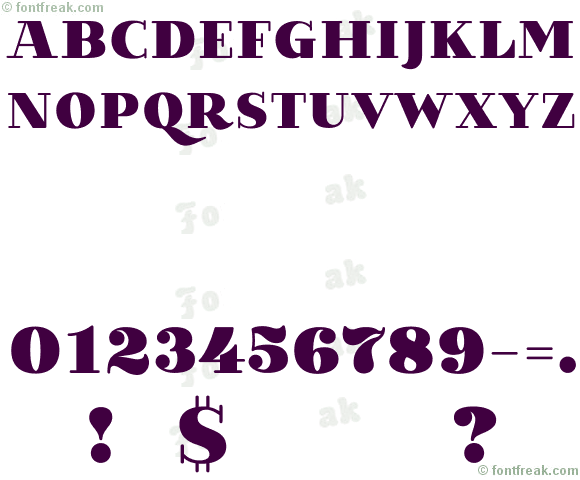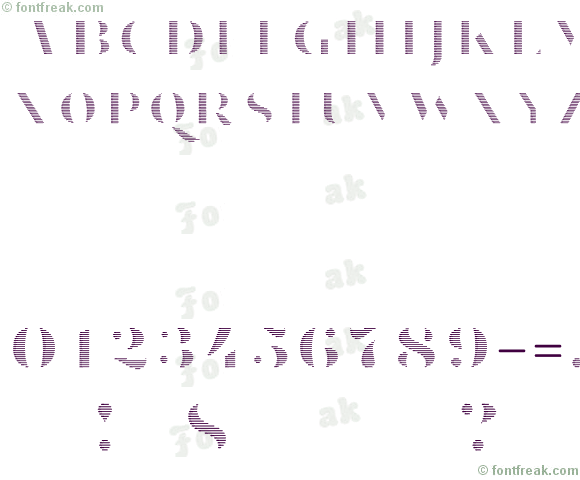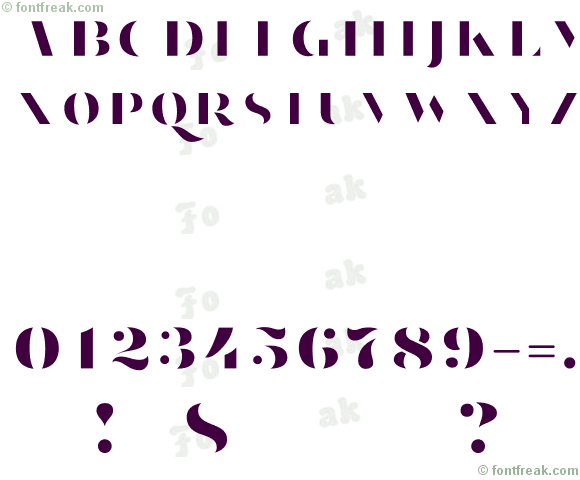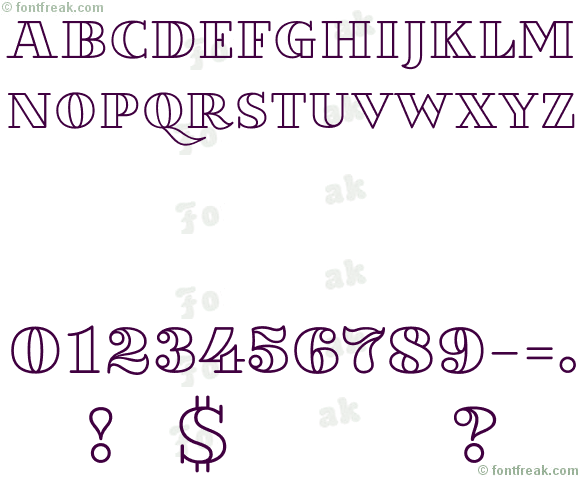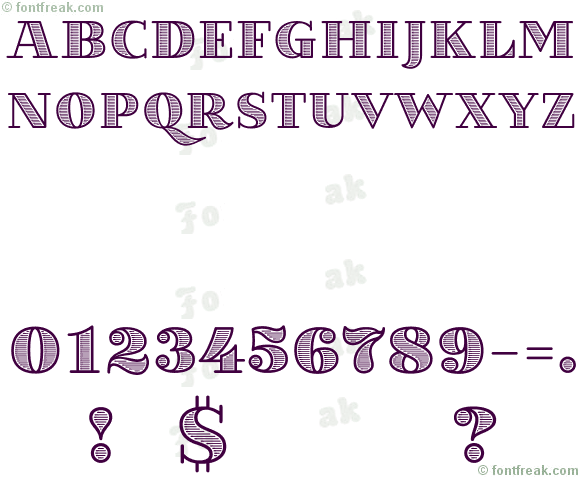
VillaDidot-Black
VillaDidot-Outline
VillaDidot
VillaDidot-Cutout
VillaDidot-Carved
VillaDidot-Black is a striking serif font designed by Lukas Bischoff, renowned for its bold and distinctive character. As part of the VillaDidot family, this font showcases a unique blend of modern elegance and classic sophistication, making it a standout choice for various design projects. The font features a high contrast between thick and thin strokes, which enhances its visual appeal. Its pronounced weight gives it a commanding presence, while the carefully crafted letterforms exhibit a refined yet contemporary aesthetic, making it perfect for impactful headlines and titles.
The spacing in VillaDidot-Black is thoughtfully designed, providing clarity and readability, even at larger sizes. Its cutout and carved characteristics add a layer of depth, making it suitable for creative applications where a touch of artistry is desired. This font excels in several specific use cases, including wedding invitations, where its elegance can evoke a sense of celebration; movie posters, capturing attention with its boldness; restaurant menus that aim for a modern yet sophisticated look; and branding materials for high-end products that need to convey luxury and style.
Targeting graphic designers, small business owners, and content creators, VillaDidot-Black offers versatility and aesthetic appeal that can elevate any project. The font’s unique design elements allow it to stand out in crowded markets, ensuring that your message is communicated effectively.